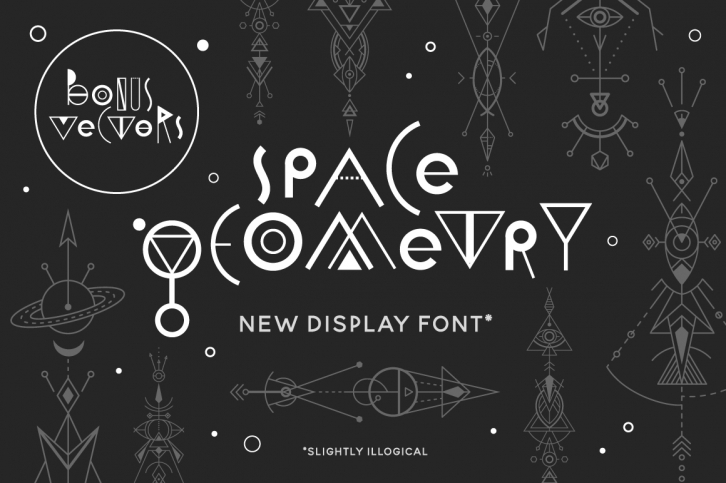
Space Geometry + Vector Bonuses is a beautiful font that was designed by Zira Zulu. It's a great choice for designers and creatives who need such a font. It was released on November 14, 2017 and the file size is 4.70 MB. Space Geometry + Vector Bonuses may give a more youthful, expressive and casual look to your project. It is a very beautiful, refined, elegant, and high-quality font.